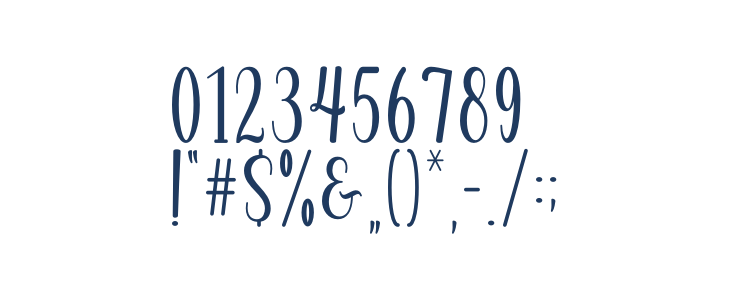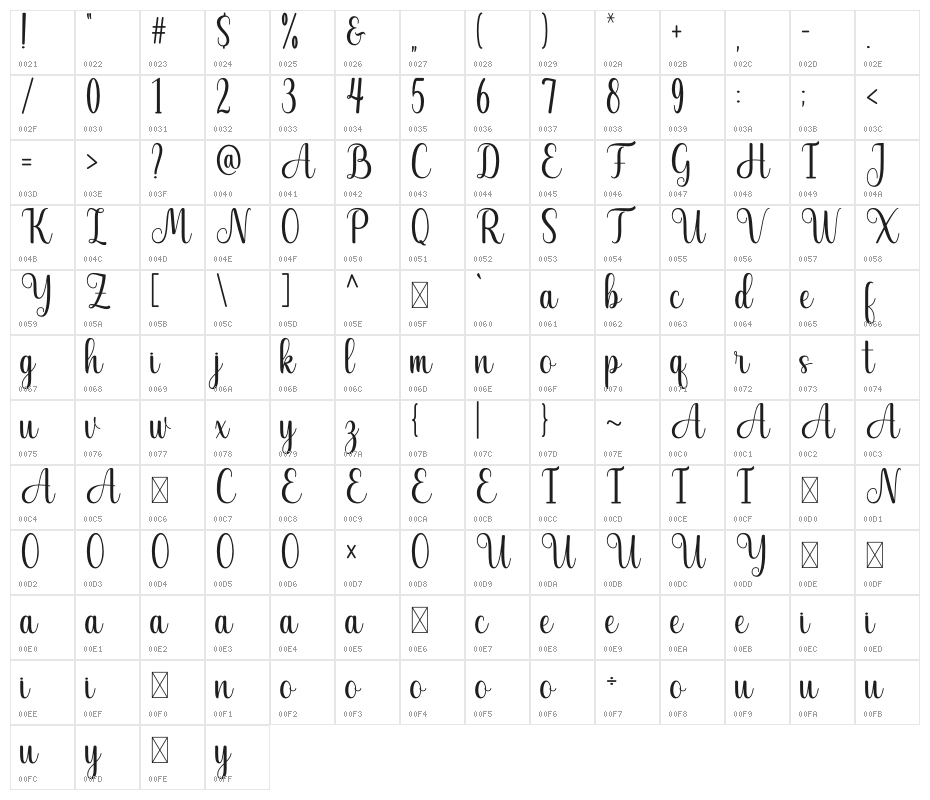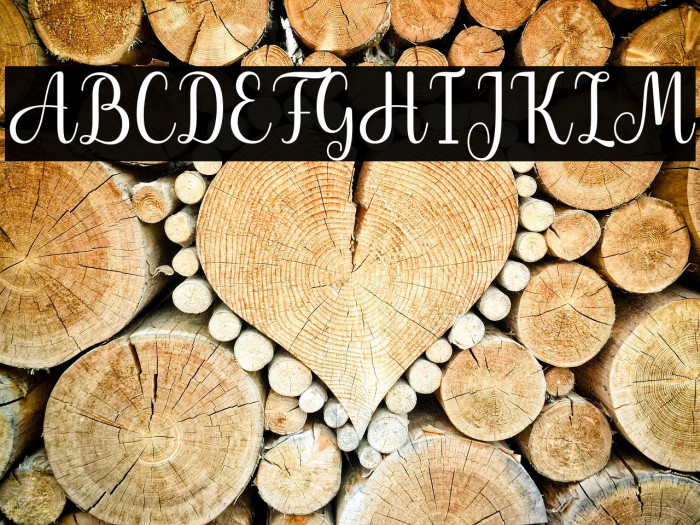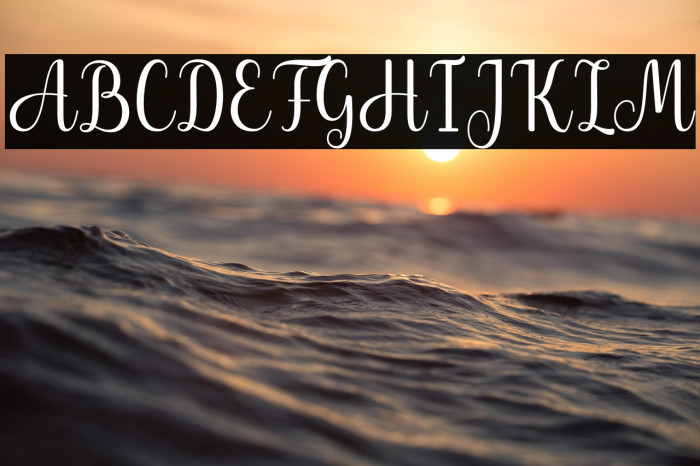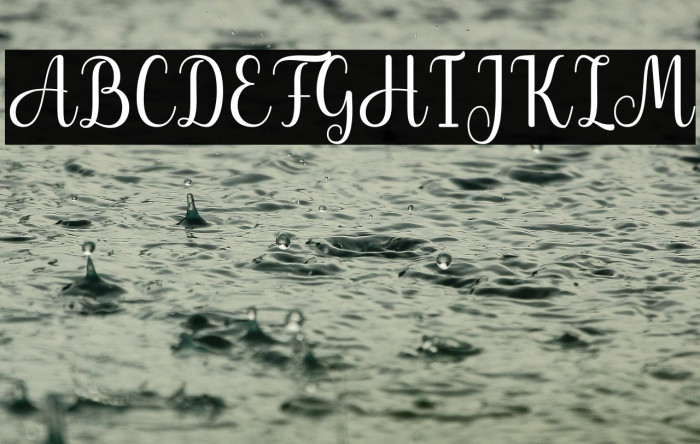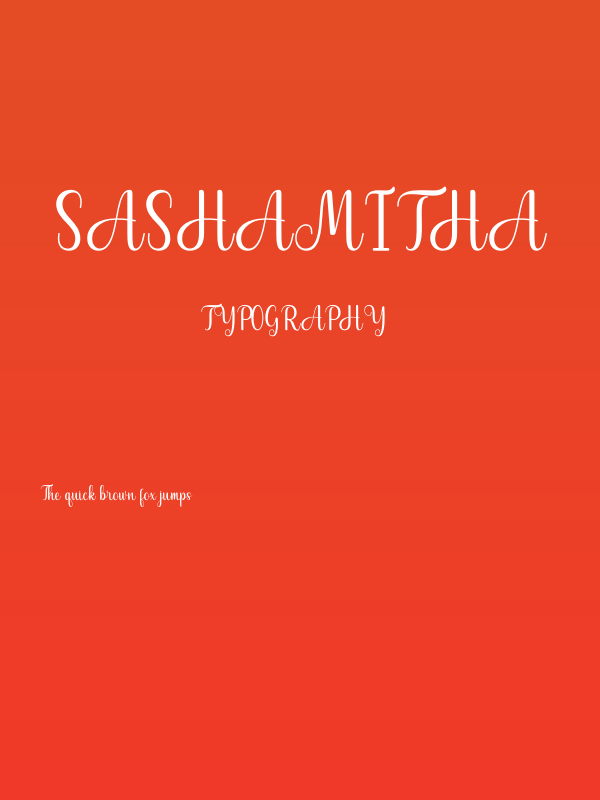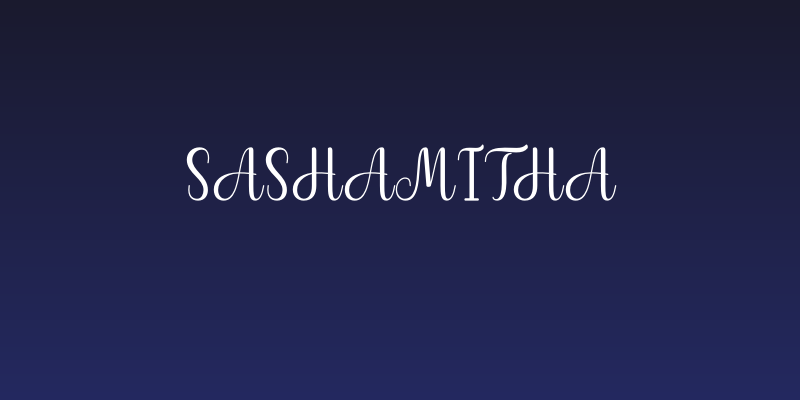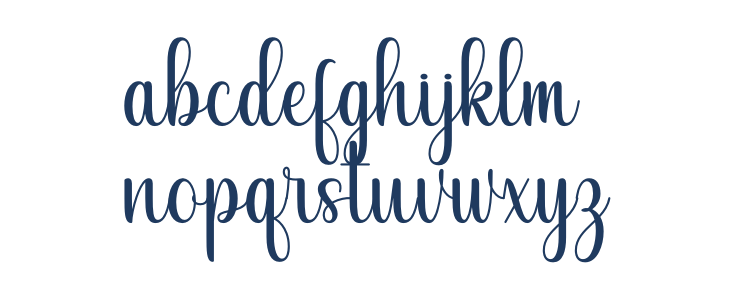
Sashamitha Font
Sashamitha Description
This font features a playful and elegant script style with a flowing, cursive design. The uppercase letters are characterized by their tall, slender forms and gentle curves, while the lowercase letters maintain a consistent, smooth flow with slightly exaggerated loops and swashes. The numbers and special characters complement the alphabet with similar stylistic elements, providing a cohesive look. The font's overall appearance is both whimsical and sophisticated, making it suitable for creative and decorative projects.